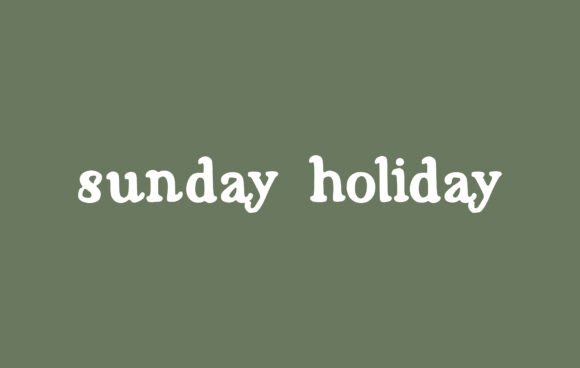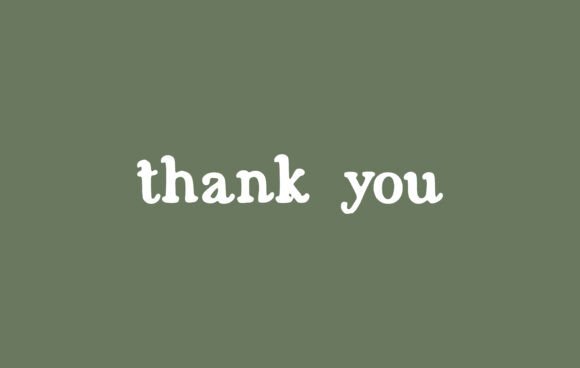
Introduction to Jream Font
Have you ever stumbled upon the perfect font for your creative project, only to find that it’s the missing piece that takes it from good to great? For many designers, this is the ultimate thrill – the moment when all the elements come together in perfect harmony. And if you’re one of them, then you’re in luck, because today we’re going to introduce you to the amazing Jream Font.
As a high-quality, authentic handwritten font with a romantic touch, Jream Font has the potential to elevate your designs to new heights. Its legibility makes it perfect for both title and body text, and its versatility allows it to shine in a wide range of creative applications – from magazine headlines to social media graphics, and even wedding invitations and cards.
Key Features of Jream Font
- Includes a comprehensive character set, covering a wide range of languages and characters, making it a versatile design resource.
- Unique characteristics include its modern, sleek aesthetic and versatility in application, making it an ideal choice for a variety of creative projects, from branding and advertising to digital art and graphic design.
Honest Review: Jream Font
As a designer, I’m always on the lookout for high-quality design resources that can help me elevate my creative projects. Recently, I stumbled upon the Jream Font, and I’m excited to share my honest review with you.
What works well about the Jream Font is its versatility and modern aesthetic. It’s perfect for creating a clean and minimalist look in your designs, and the transparent background option allows for seamless integration with your chosen design elements. The font is also free to download, making it an excellent resource for designers working on a budget.
- ✨ Modern and sleek design aesthetic
- ✨ Versatile and suitable for a wide range of creative projects
- ✨ Transparent background option for easy integration
One potential limitation of the Jream Font is its limited character set. While it’s perfect for titles and headings, it may not be the best choice for large blocks of text.
Overall, I’m impressed with the Jream Font and its potential to elevate my creative projects. With its modern design aesthetic and transparent background option, it’s a valuable addition to any designer’s toolkit.
- ⚠️ Limited character set, making it less suitable for large blocks of text
Tips for Getting the Most Out of Jream Font
For high-quality results, use the Jream Font in conjunction with other high-quality design resources. Experiment with different font sizes, colors, and styles to add visual interest to your design.
Common Use Cases for Jream Font
The Jream Font is ideal for creative projects that require a unique and eye-catching font. It is commonly used in logos, branding materials, and advertising campaigns. Its high-quality design makes it a popular choice among designers and creatives.